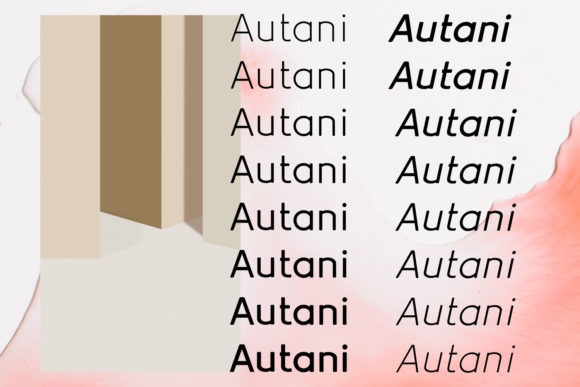
Aotani Font
Aotani Sans Serif Font
This font is a catchy sans-serif suitable for branding and headings. Depending on the context of the project, the typeface can change its character from playful to aesthetically delicate. Masterfully designed to become a true favorite, this font has the potential to bring each of your creative ideas to the highest level!